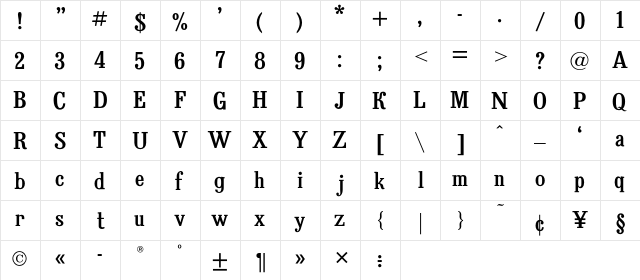
Bruskovaya Regular
Design Context for Bruskovaya Typeface
Bruskovaya is a composed and adaptable typeface that performs quietly and consistently across a wide range of design contexts.
Pro Tip: Use Bruskovaya in both headline and body roles to test its range before committing to a single application.